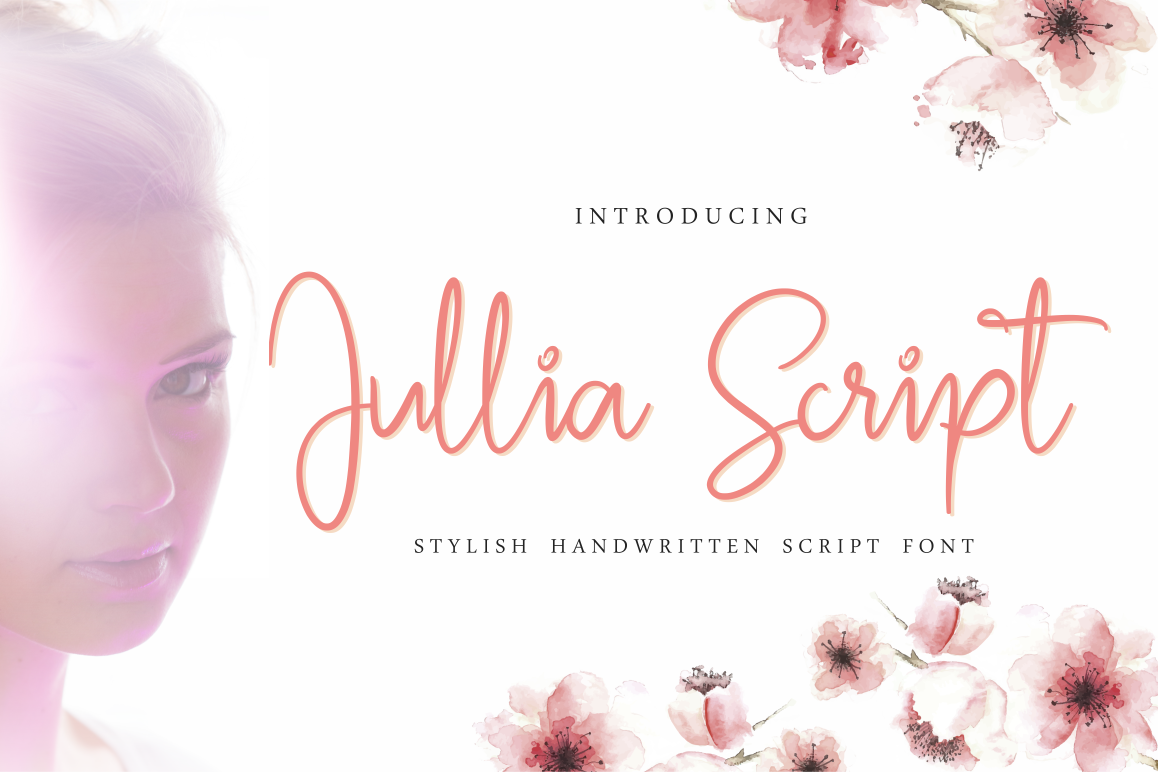
Jullia Script
Jullia Script is handwritten font. carefully crafted from handwriting.
this font is looks good to use it for Logotype, Name Tag, Short Quotes, Wedding Invitation Design, Greeting Card, Business Card, and many more Design Project.
This font was impressed sweet, feminine and elegant.It contains a full set of Uppercase, Lowercase letters, Punctuation, Numerals, and Multilingual support.
Stylistic Alternate
Standard Ligature